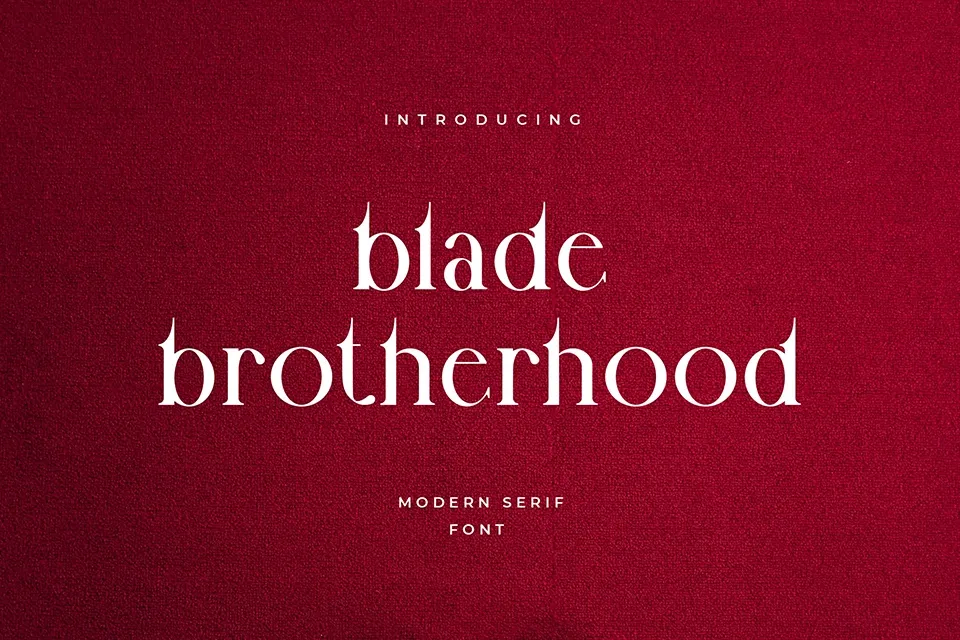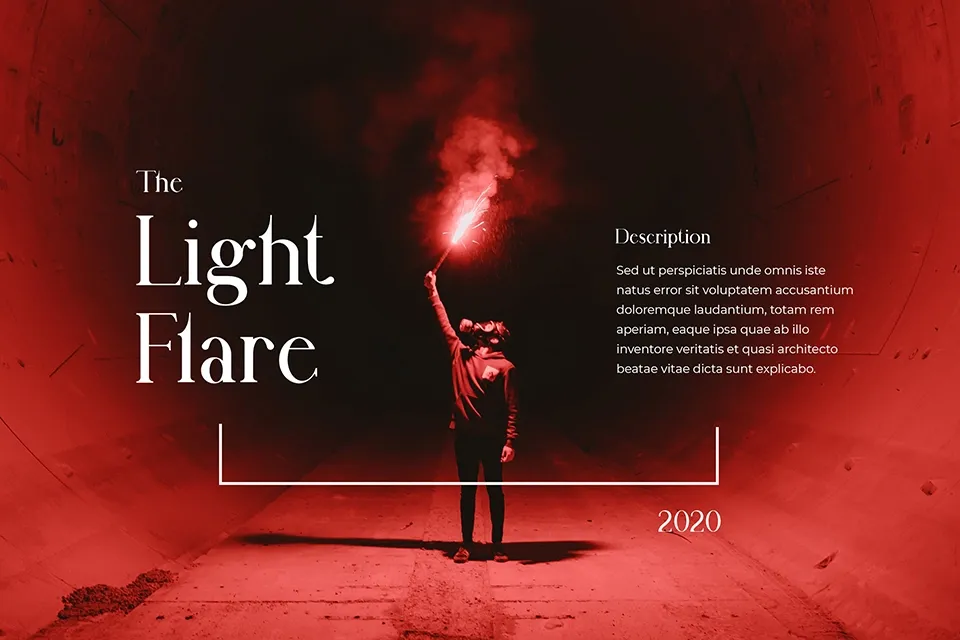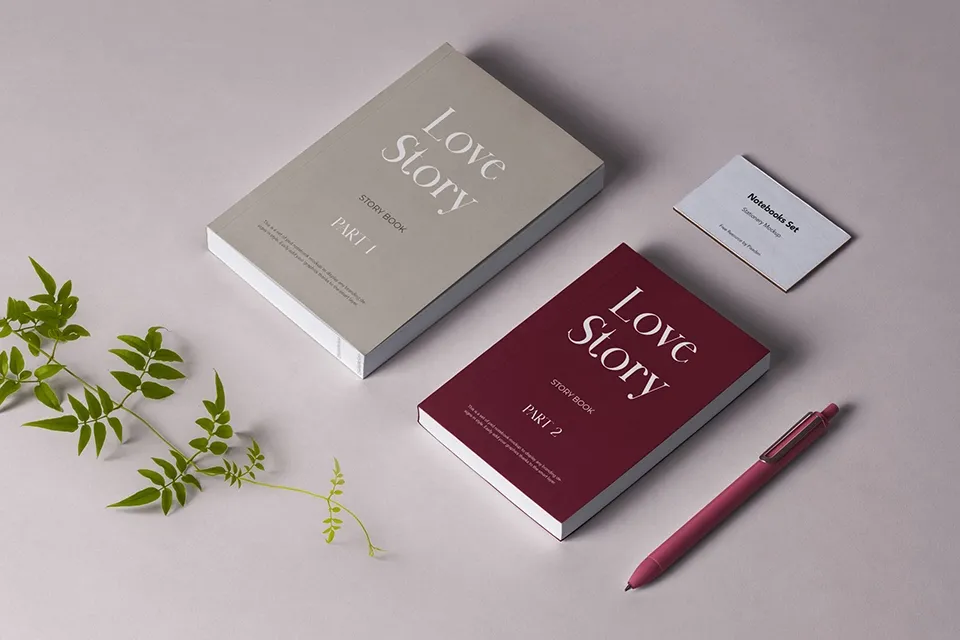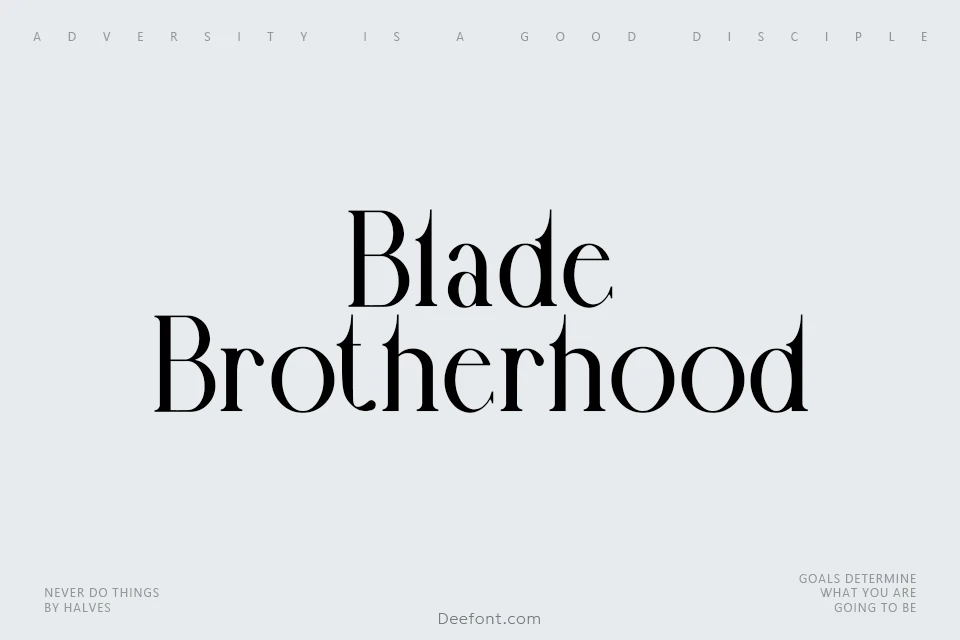
Blade Brotherhood Serif Font
Blade Brotherhood Serif Font is a modern serif typeface with elegant letterforms and a unique, classic style. Its refined strokes and vintage charm make it ideal for display, labeling, clothing, movie titles, book covers, and any project seeking a sophisticated yet bold look. The font evokes a Roman period aesthetic, perfect for fantasy texts or dramatic headlines.